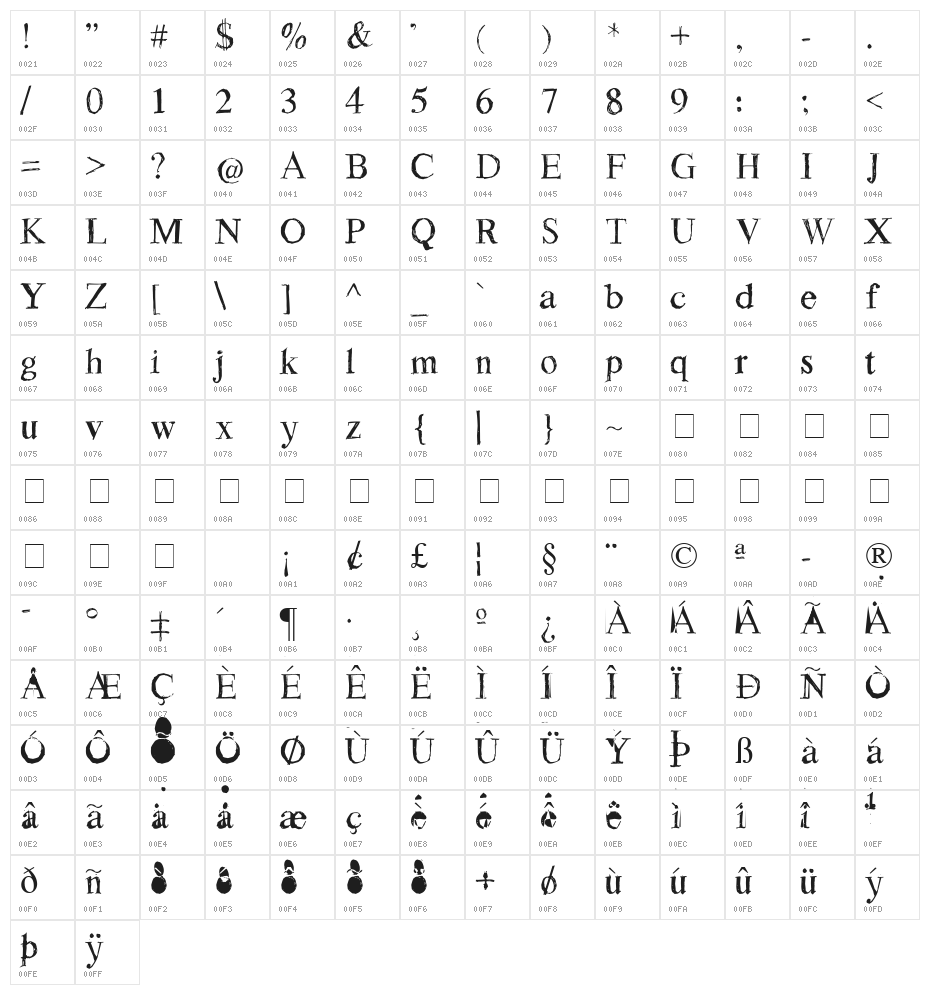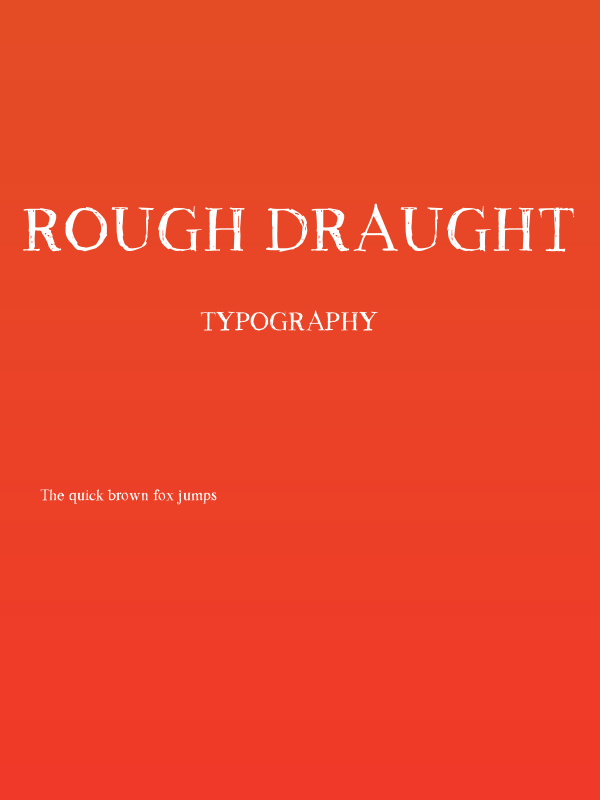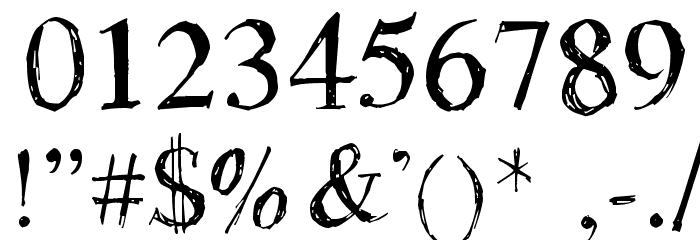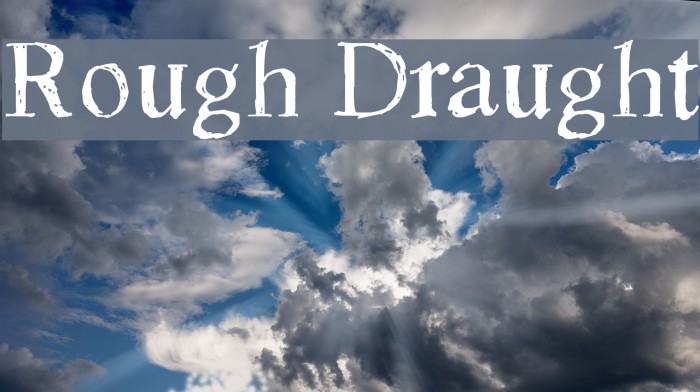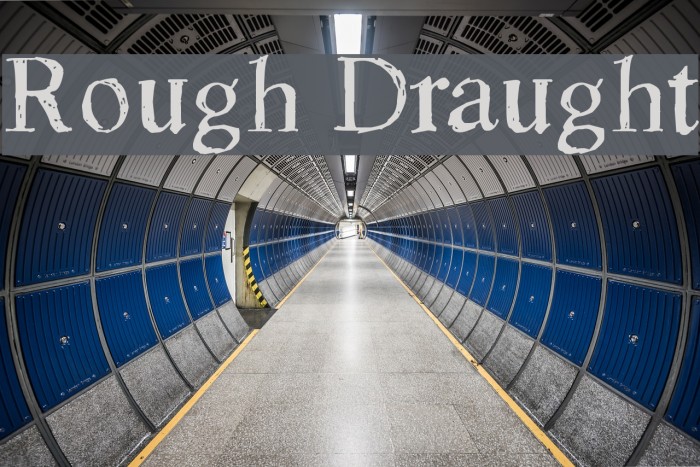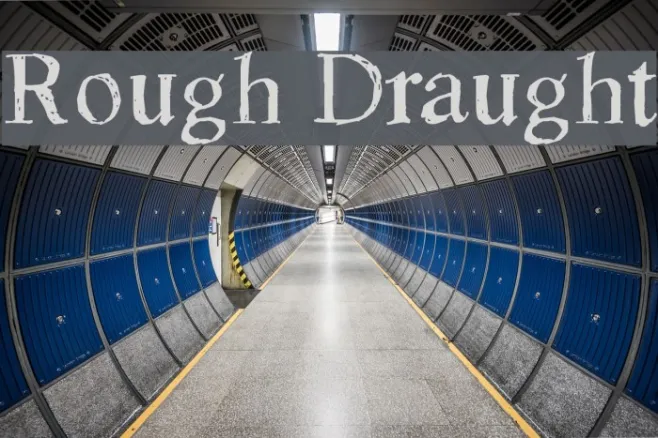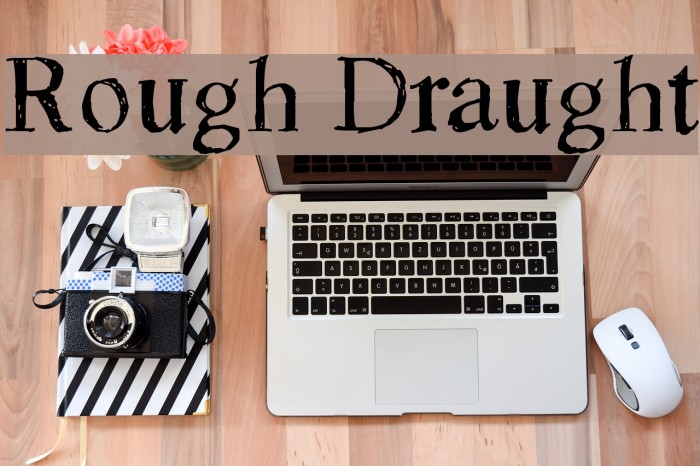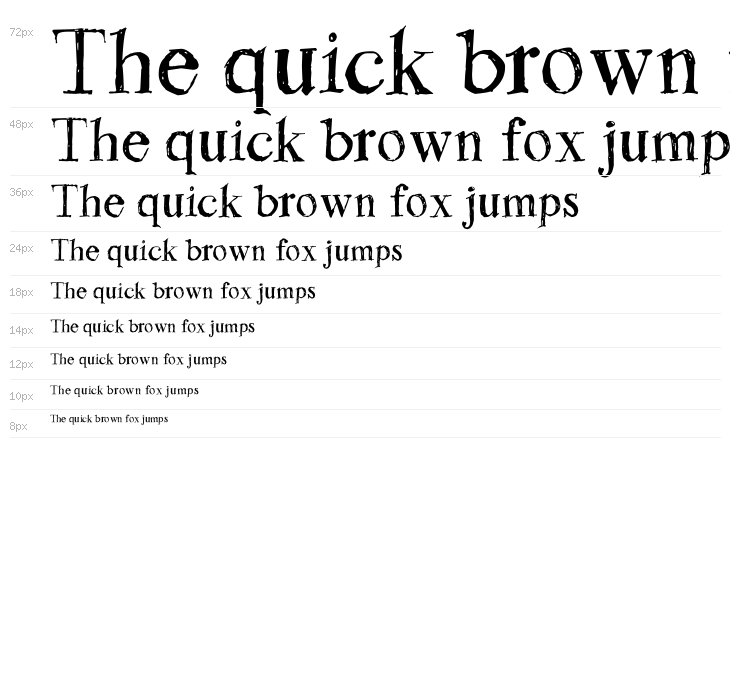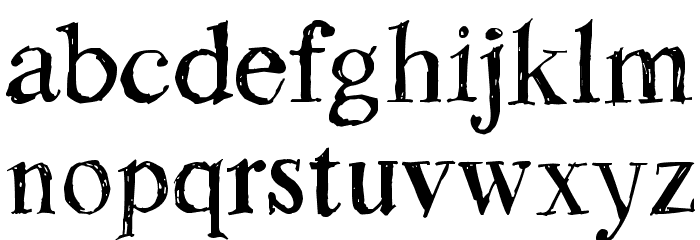
Rough Draught Font
Rough Draught Description
This font exhibits a rugged, hand-drawn aesthetic with a distinctively rough texture, giving it an organic and artistic feel. The characters are unevenly weighted, with irregular edges and a slightly distressed appearance, reminiscent of ink or brush strokes. The uppercase and lowercase letters maintain a consistent style, while the numerals and special characters complement the overall design. This font's unique style makes it stand out, offering a creative and expressive option for various design projects.
| Overall Style | Artistic, Organic |
| Use Case | Headlines, Posters, Artistic Designs |
| Proposed Projects | Ideal for artistic projects, album covers, posters, and branding that require a creative and expressive touch. |